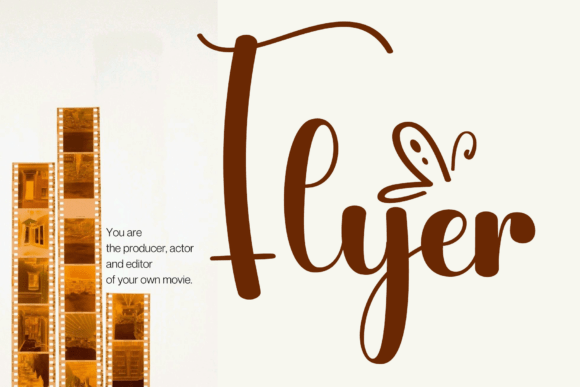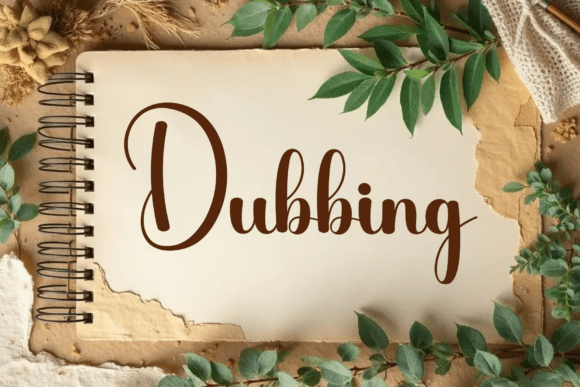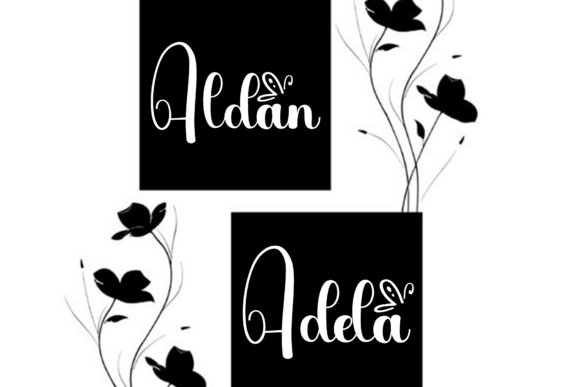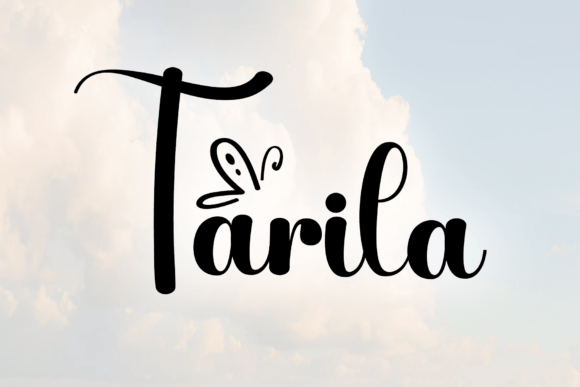
Discover the Timeless Charm of Atlantic Font: Elevate Your Designs with Elegance
Are you on the hunt for a font that adds a touch of elegance and sophistication to your designs? Look no further than the Atlantic Font. This lovely and timeless handwritten font has been making waves in the design community, and for good reason. Its unique and beautiful touch is perfect for creating eye-catching logos, branding, and quotes that will leave a lasting impression.
The Characteristics of Atlantic Font
Atlantic Font is a beautifully crafted handwritten font that boasts a range of characteristics that make it stand out from the crowd. Each letter has been carefully designed to have a unique and beautiful touch, which gives the font a sense of elegance and sophistication. The font is perfect for designers and crafters who want to add a touch of personality to their work.
Why Choose Atlantic Font?
So, why choose Atlantic Font for your design needs? Here are just a few reasons why this font is a cut above the rest:
- Timeless appeal: Atlantic Font has a timeless quality that ensures it will never go out of style. Its classic design makes it perfect for creating logos, branding, and other design elements that need to stand the test of time.
- Elegant and sophisticated: The font’s elegant and sophisticated design makes it perfect for creating high-end designs that require a touch of luxury.
- Unique and beautiful touch: Each letter in the Atlantic Font has a unique and beautiful touch that adds a touch of personality to your designs.
- Versatile: Atlantic Font is a versatile font that can be used for a range of design applications, from logos and branding to quotes and social media graphics.
How to Use Atlantic Font in Your Designs
Using Atlantic Font in your designs is easy. Here are a few tips to get you started:
- Pair it with complementary fonts: Atlantic Font pairs well with a range of fonts, including sans-serif fonts like Arial and Helvetica. Experiment with different font combinations to find the perfect pairing for your design.
- Use it for headlines and titles: Atlantic Font is perfect for creating eye-catching headlines and titles. Its elegant design makes it a great choice for adding a touch of sophistication to your designs.
- Add a personal touch: Atlantic Font’s unique and beautiful touch makes it perfect for adding a personal touch to your designs. Use it to create custom logos, branding, and other design elements that reflect your personality and style.
Atlantic Font for Designers and Crafters
Atlantic Font is a must-have for designers and crafters who want to elevate their designs with elegance and sophistication. Whether you’re creating logos, branding, or quotes, this font is sure to impress. Its timeless appeal and unique design make it a great choice for anyone who wants to add a touch of personality to their work.
In conclusion, Atlantic Font is a lovely and timeless handwritten font that is perfect for designers and crafters who want to add a touch of elegance and sophistication to their work. Its unique and beautiful touch, combined with its versatility and timeless appeal, make it a great choice for a range of design applications. So why wait? Download Atlantic Font today and start creating stunning designs that will leave a lasting impression.
- Lovely and timeless handwritten font
- Unique and beautiful touch
- Perfect for creating eye-catching logos, branding, and quotes
- Elegant and sophisticated design